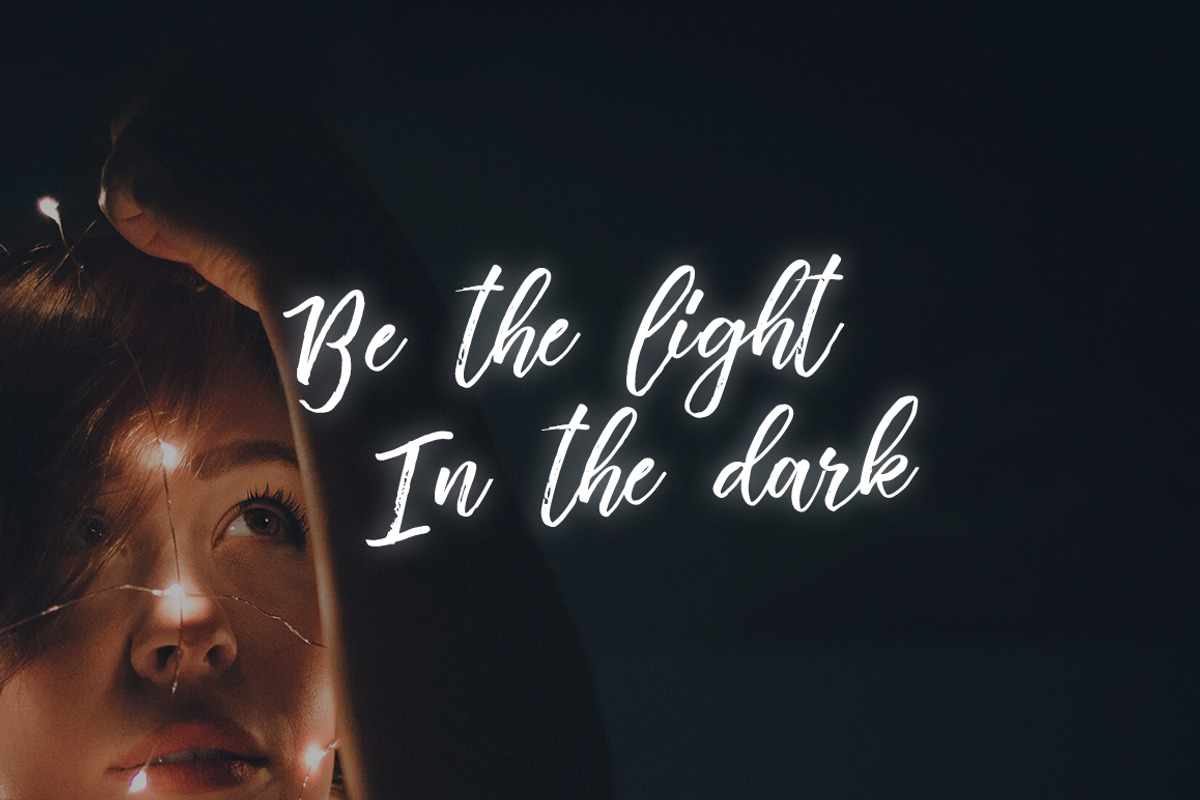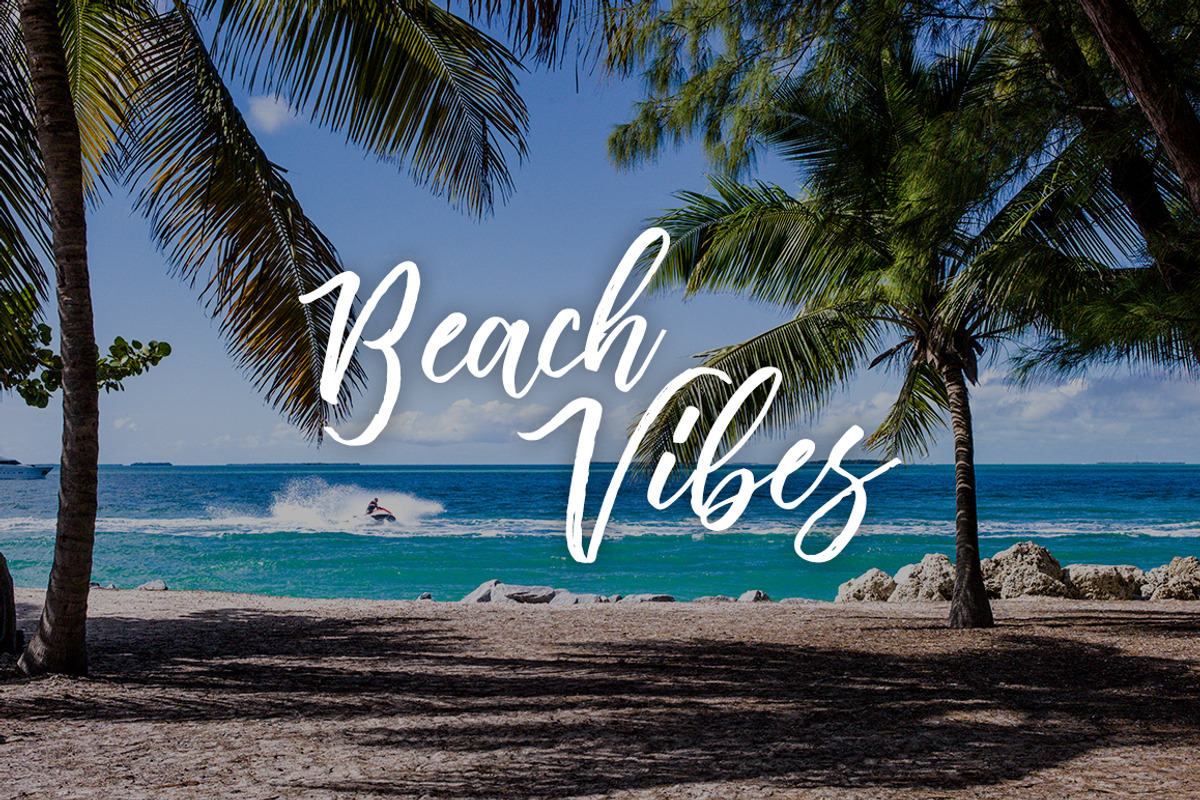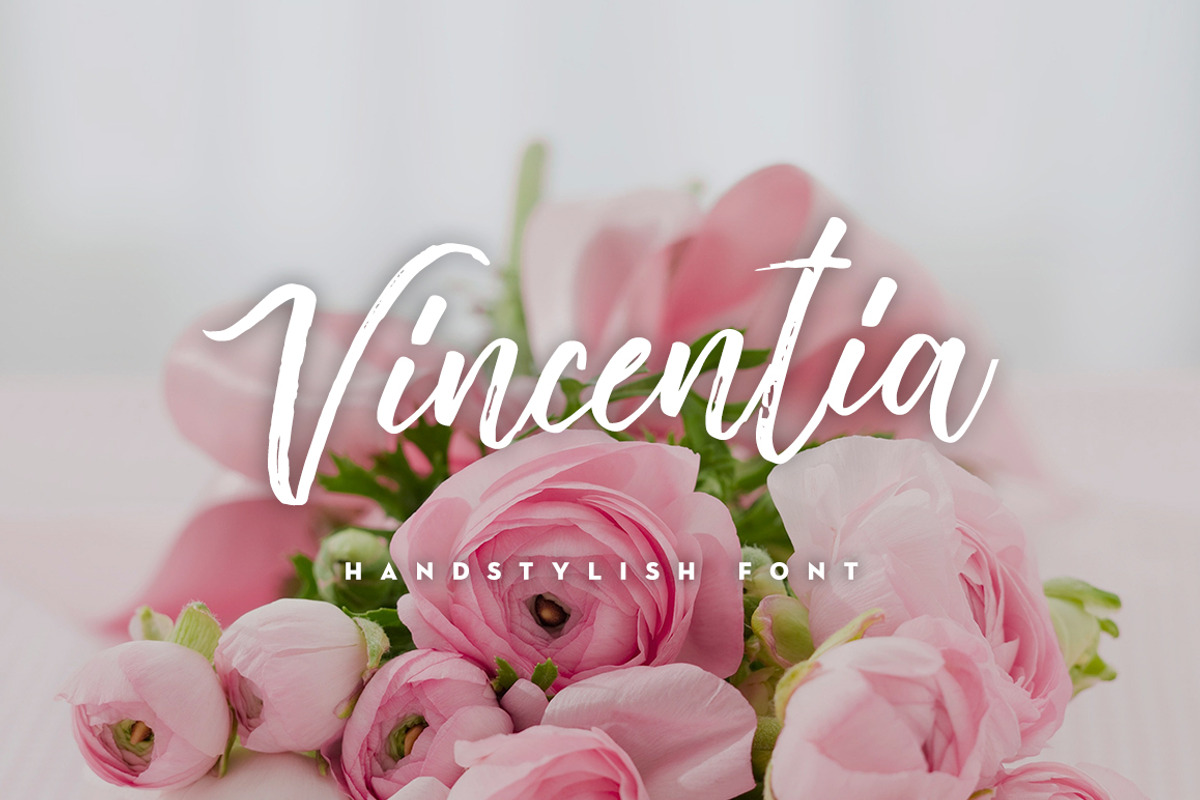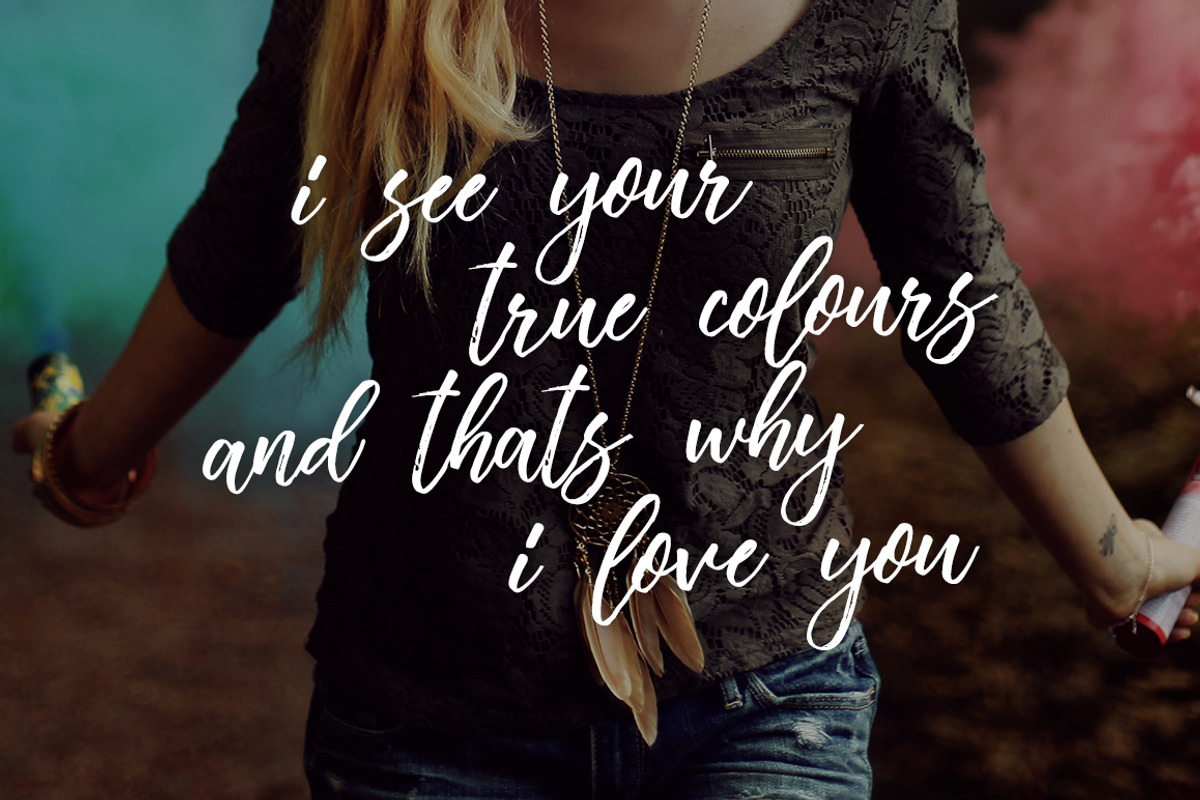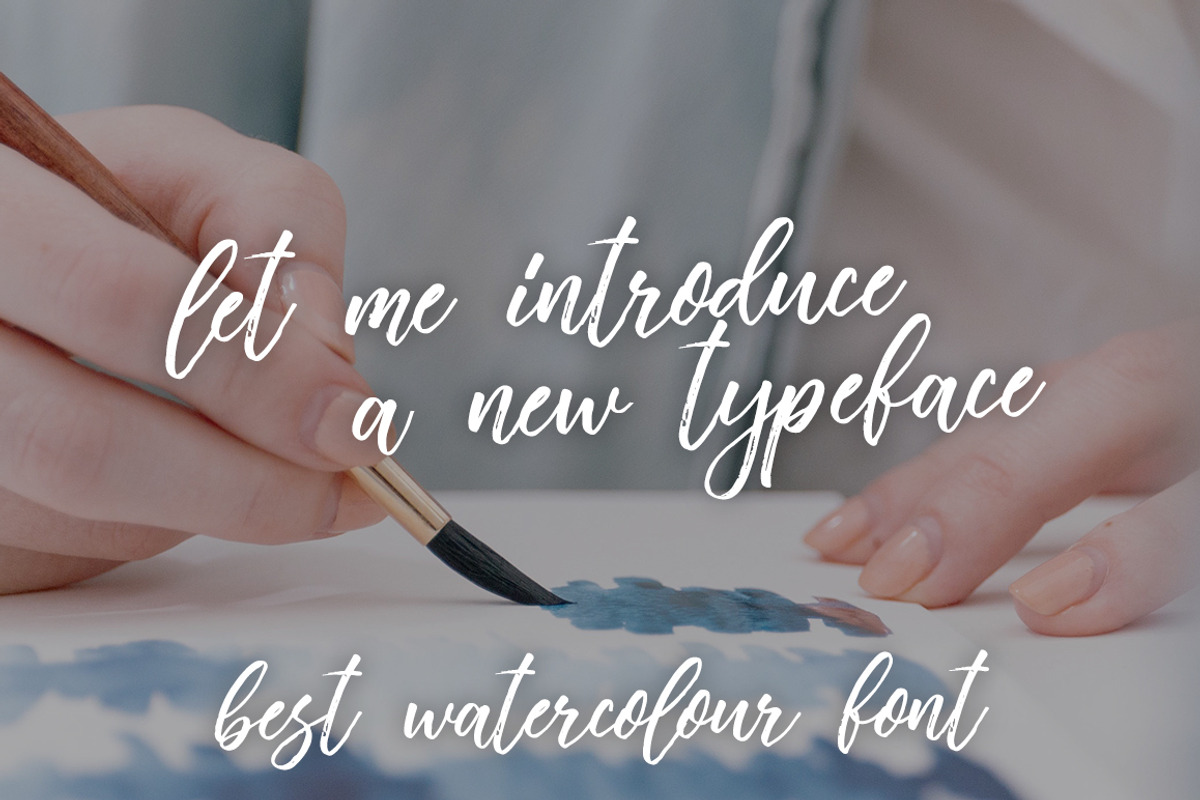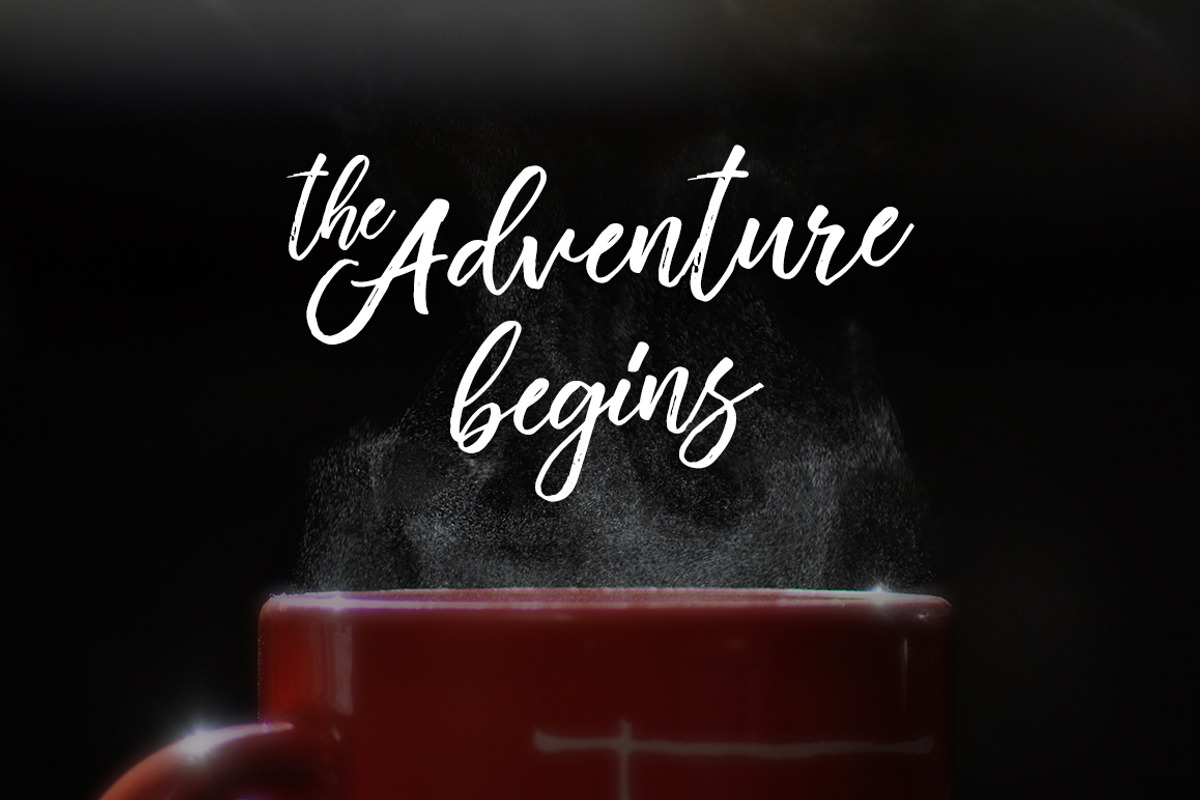
Vincentia Handstylish Font
Say hello for Vincentia Handstylish Font! Best match for logos, header, titles, prints & other creative process possibilities.
Create a extraordinary handstylish results by using Vincentia Handstylish Font!